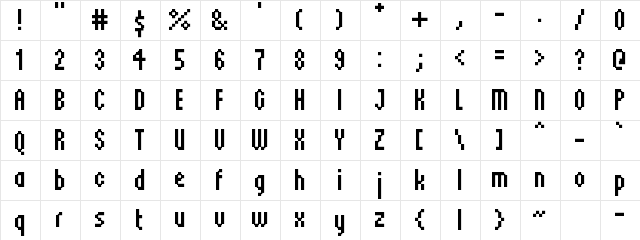
Silky Wonderland Regular Font Preview
Silky Wonderland Regular
Silky Wonderland Regular Font Details
Design Context for Silky Wonderland Typeface
Silky Wonderland takes a measured approach to typography — its balanced proportions and neutral character make it a reliable workhorse for both digital and print work.